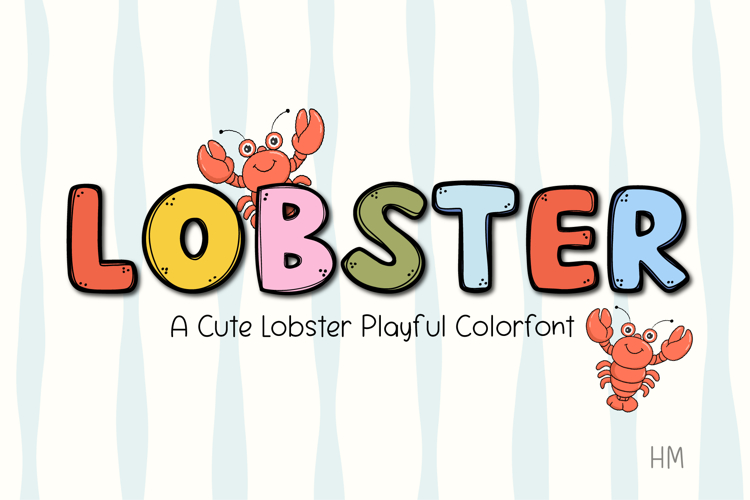
Add a Splash of Fun to Your Designs with Lobster Color Font!
Bring your projects to life with the Lobster Color Font, a playful and vibrant Opentype-SVG font designed for creativity. This cute, hand-drawn alphabet is perfect for classroom materials, summer-themed parties, scrapbooking, and digital stickers.